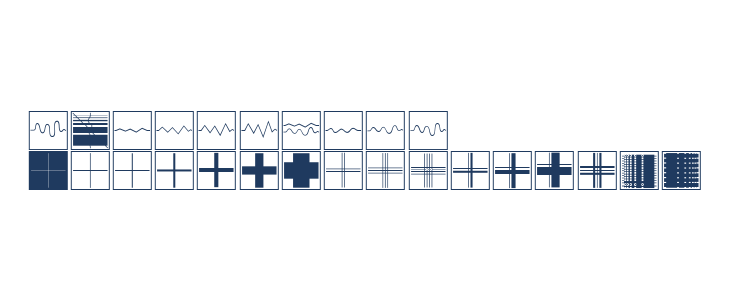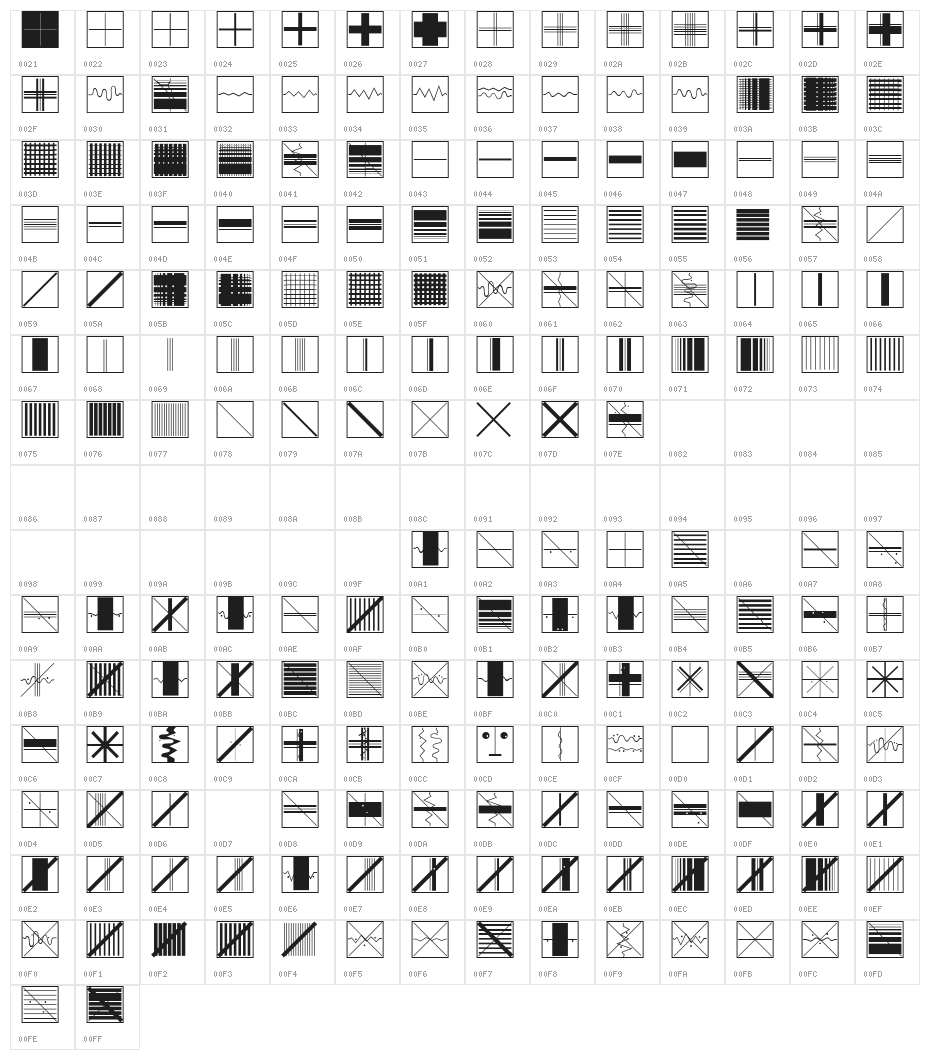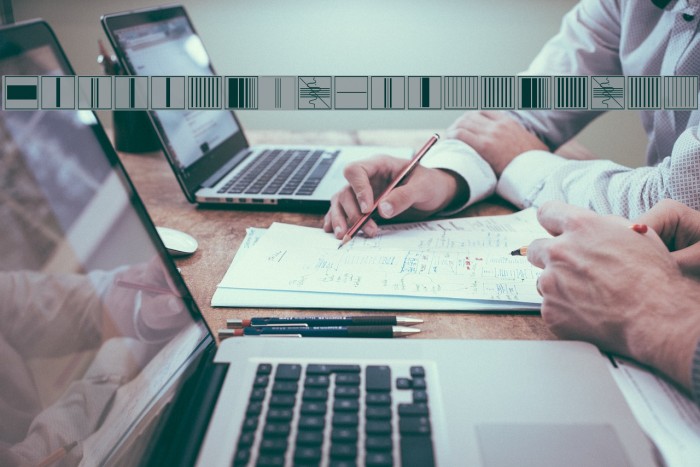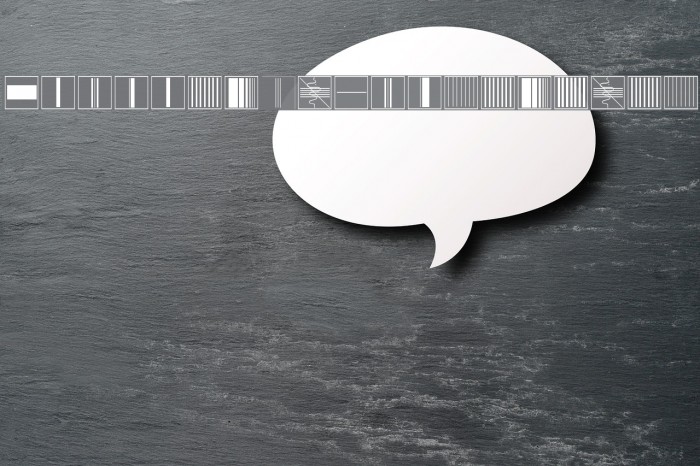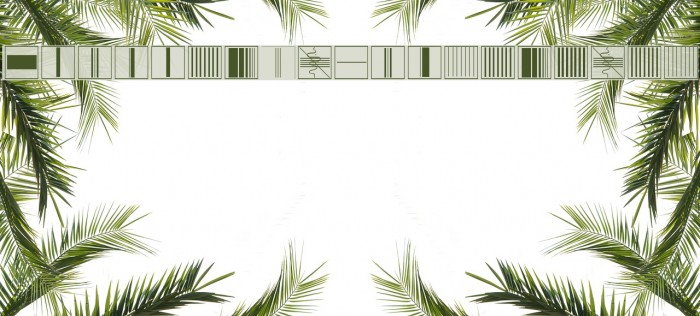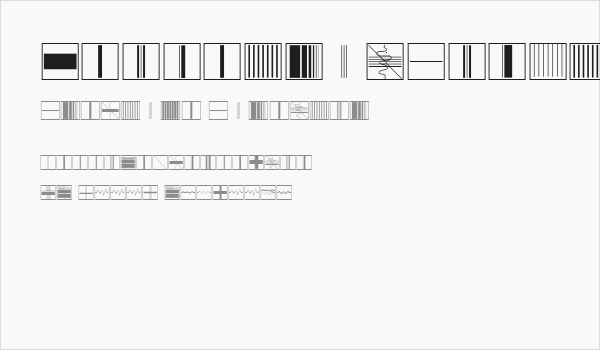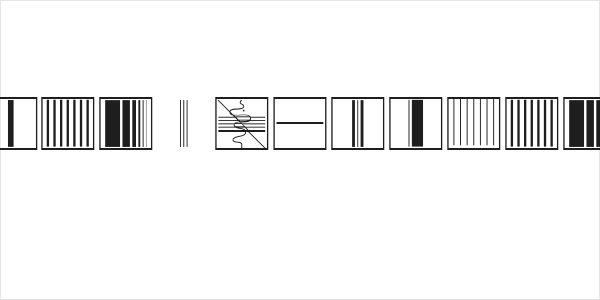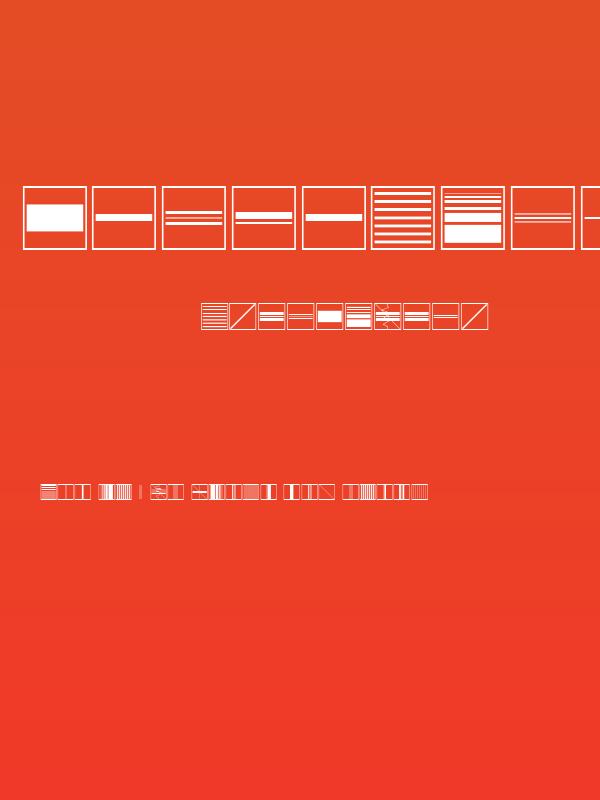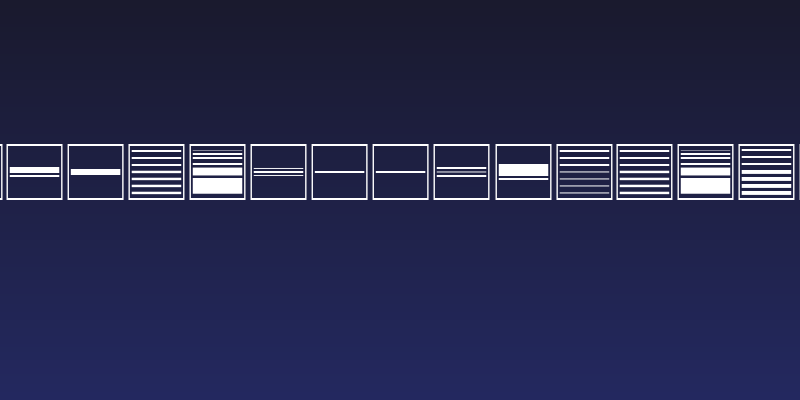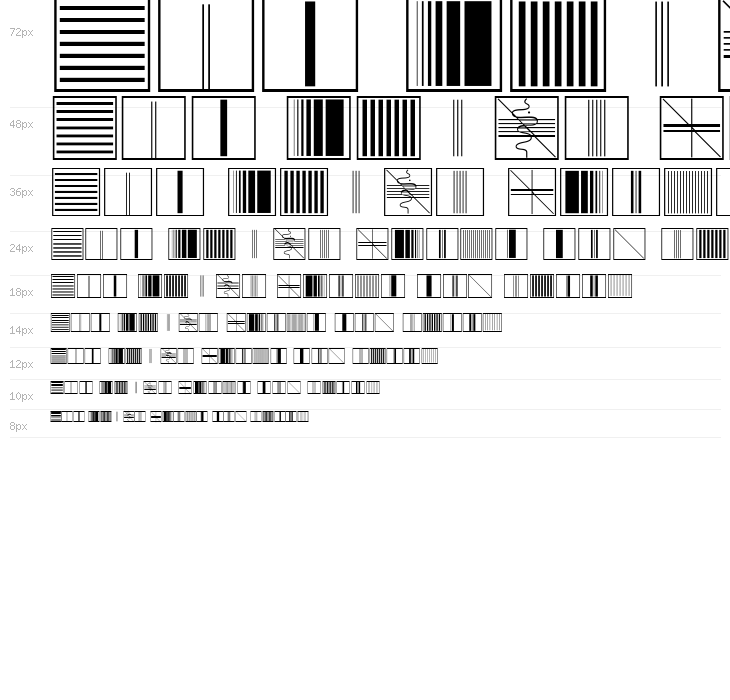
GeometricConstructs Font
GeometricConstructs Description
A highly abstract, geometric font composed of squares containing various line patterns, solid fills, and shapes. Characters are represented by unique arrangements of straight, diagonal, or wavy lines, as well as filled and empty spaces, resulting in a visually striking and unconventional appearance.
| Overall Style | Decorative, Abstract, Modern |
| Use Case | Logos, Headlines, Artistic projects, Experimental design |
| Proposed Projects | Experimental posters, album covers, modern art branding, visual puzzles, avant-garde design projects. |